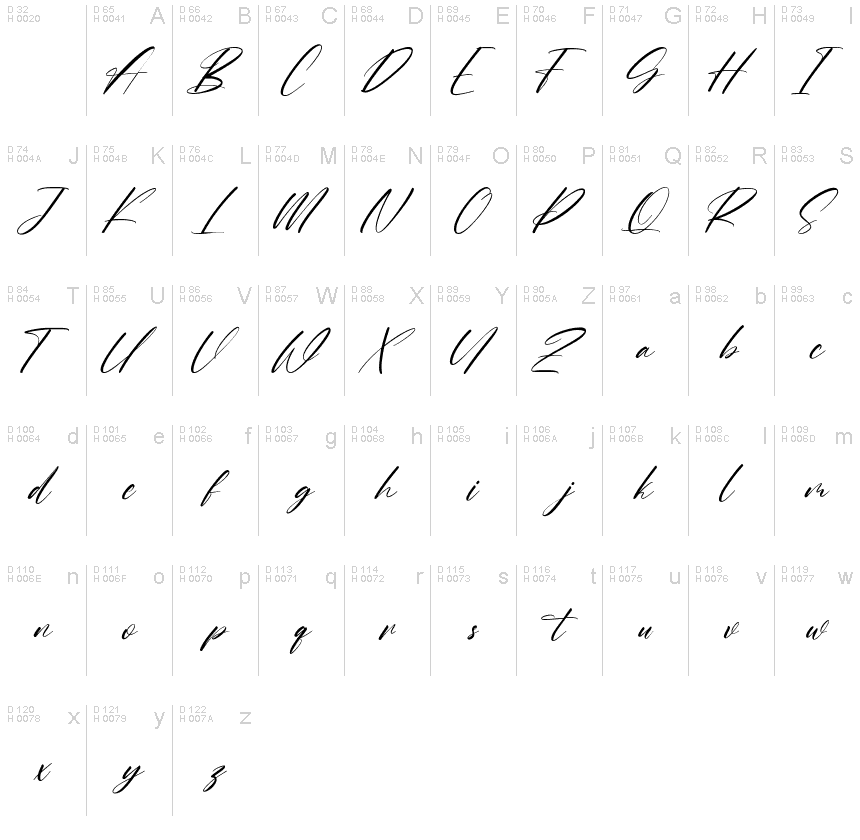
Charlotte Matthew Free Regular
Charlotte Matthew is a captivating handwritten font by renowned designer Maulana Creative. With its elegant signature style, this semi-light typeface exudes sophistication and charm. Its condensed width adds a touch of modernity, making it perfect for various creative projects. Whether you're designing invitations, branding materials, or social media graphics, Charlotte Matthew will effortlessly elevate your work with its unique flair. This versatile font is ideal for fashion blogs, beauty products, wedding stationery, and boutique logos. Let Charlotte Matthew bring an air of refinement to your designs and make them truly stand out.